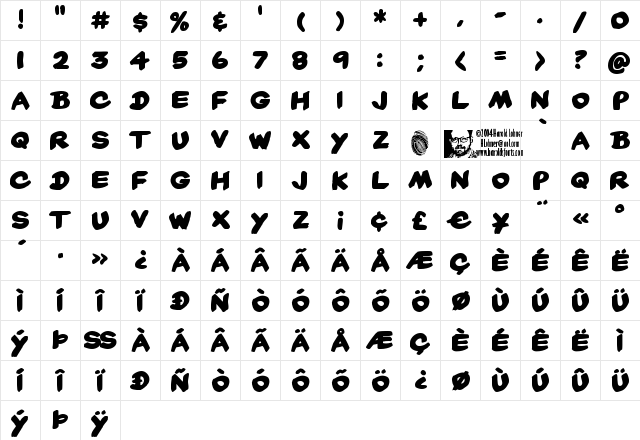
Yard Sale Regular
Design Context for Yard Sale
Yard Sale is a composed and adaptable typeface that performs quietly and consistently across a wide range of design contexts.